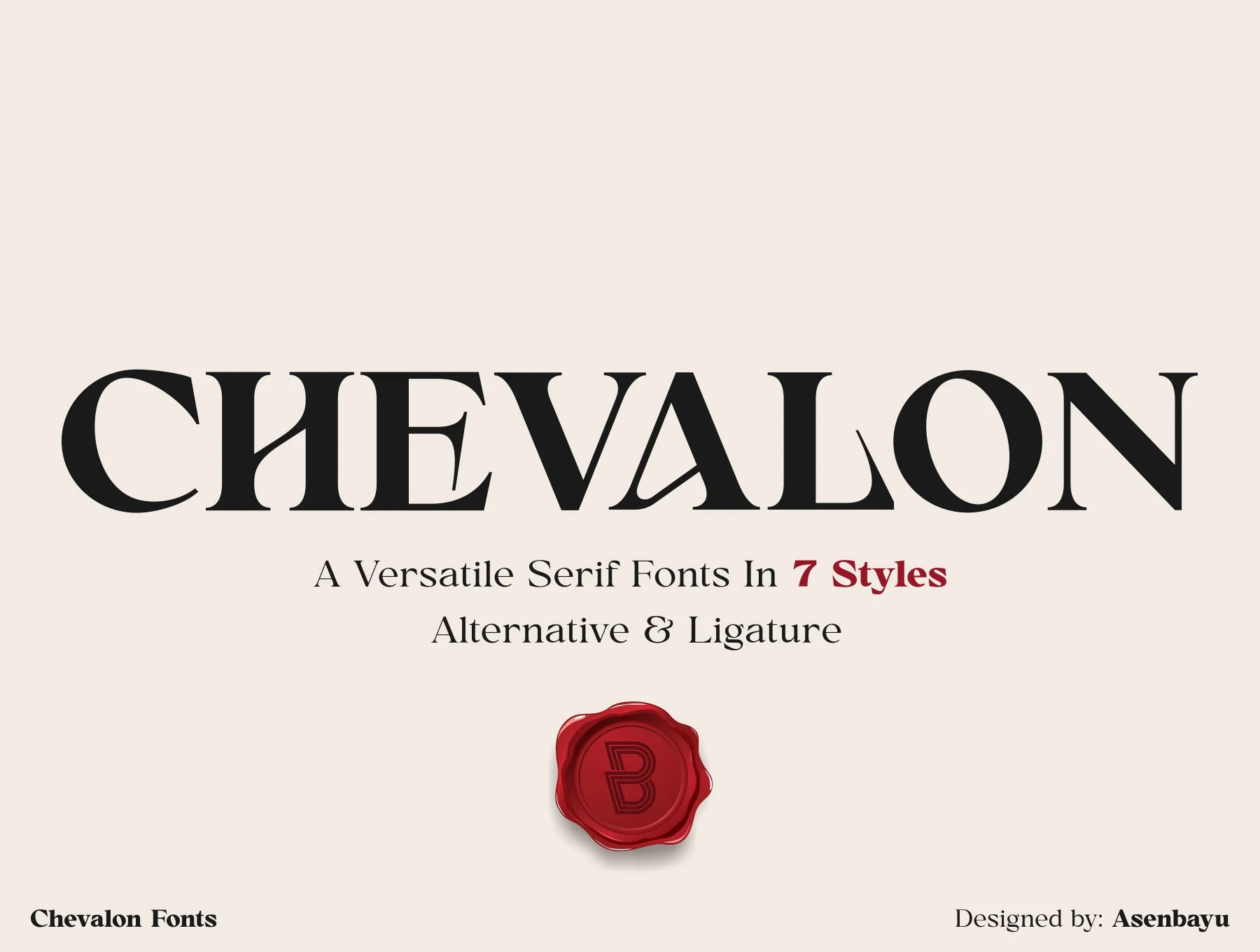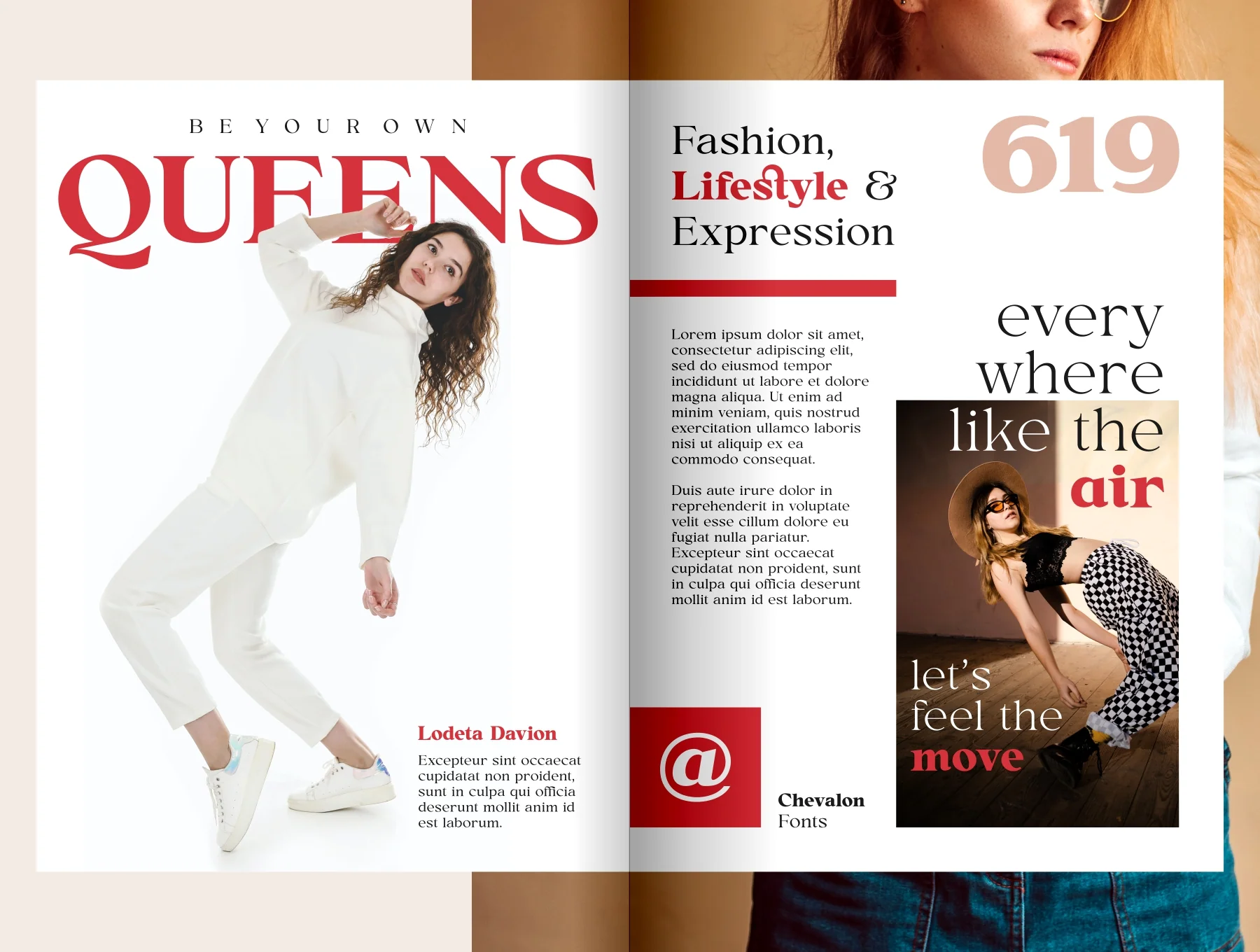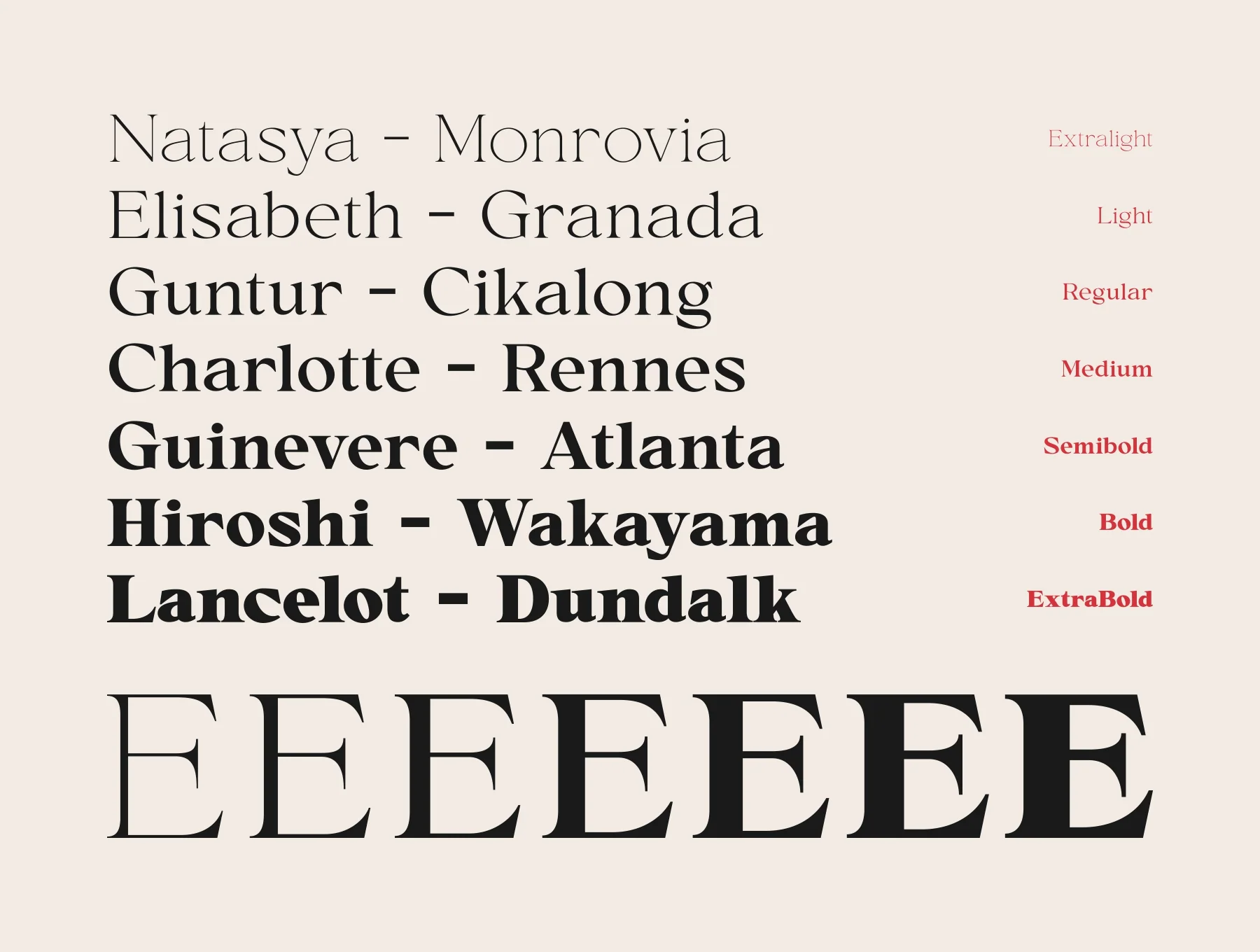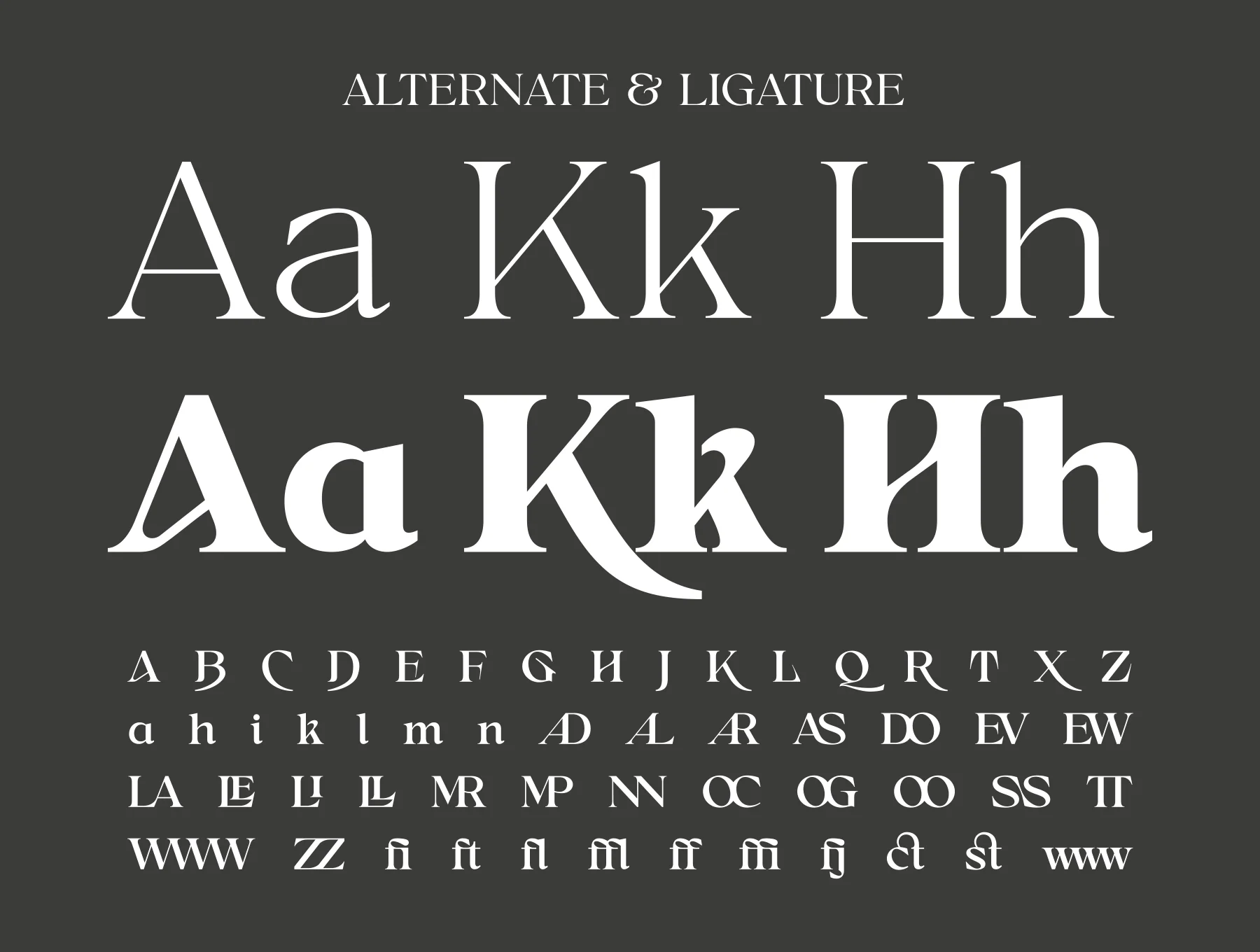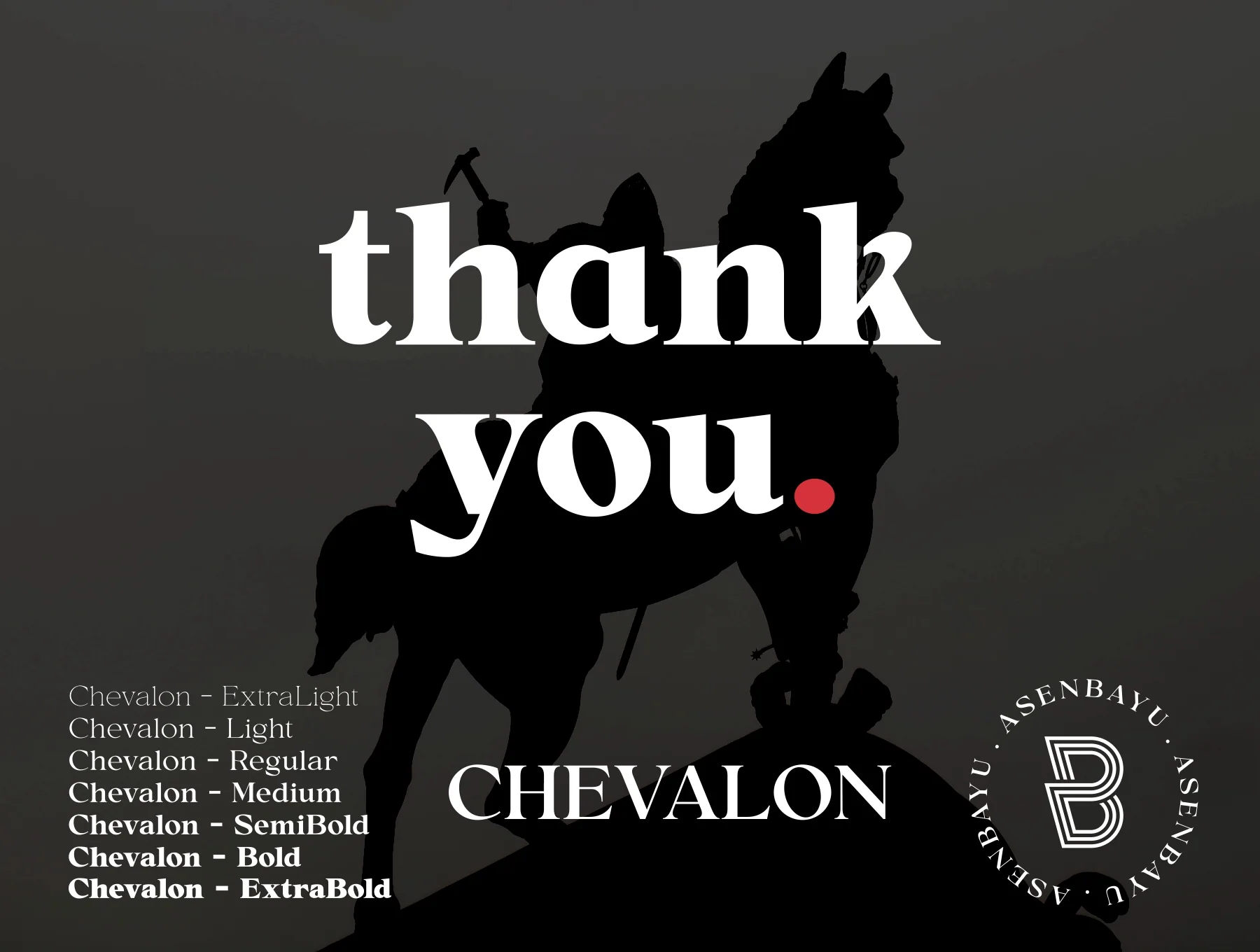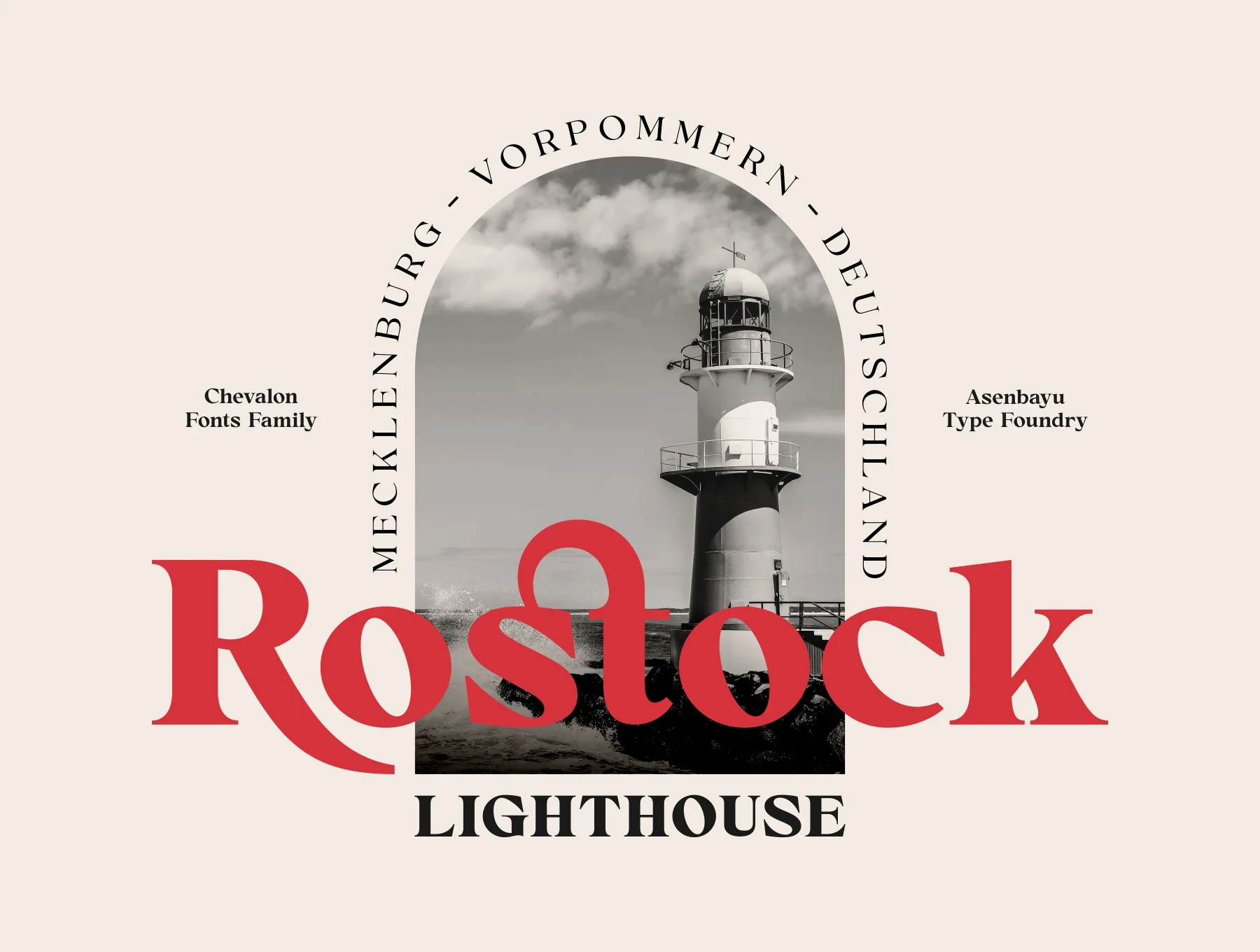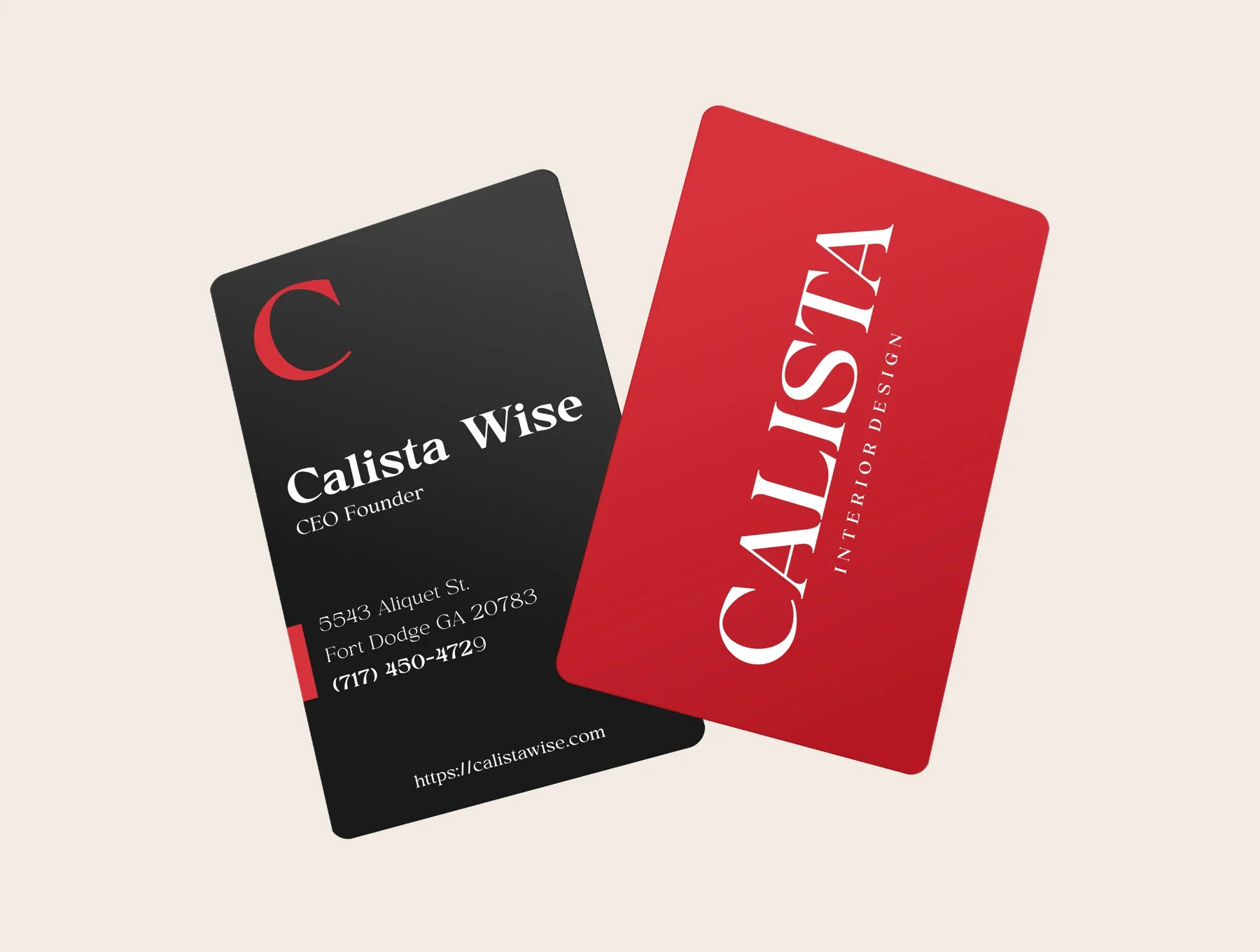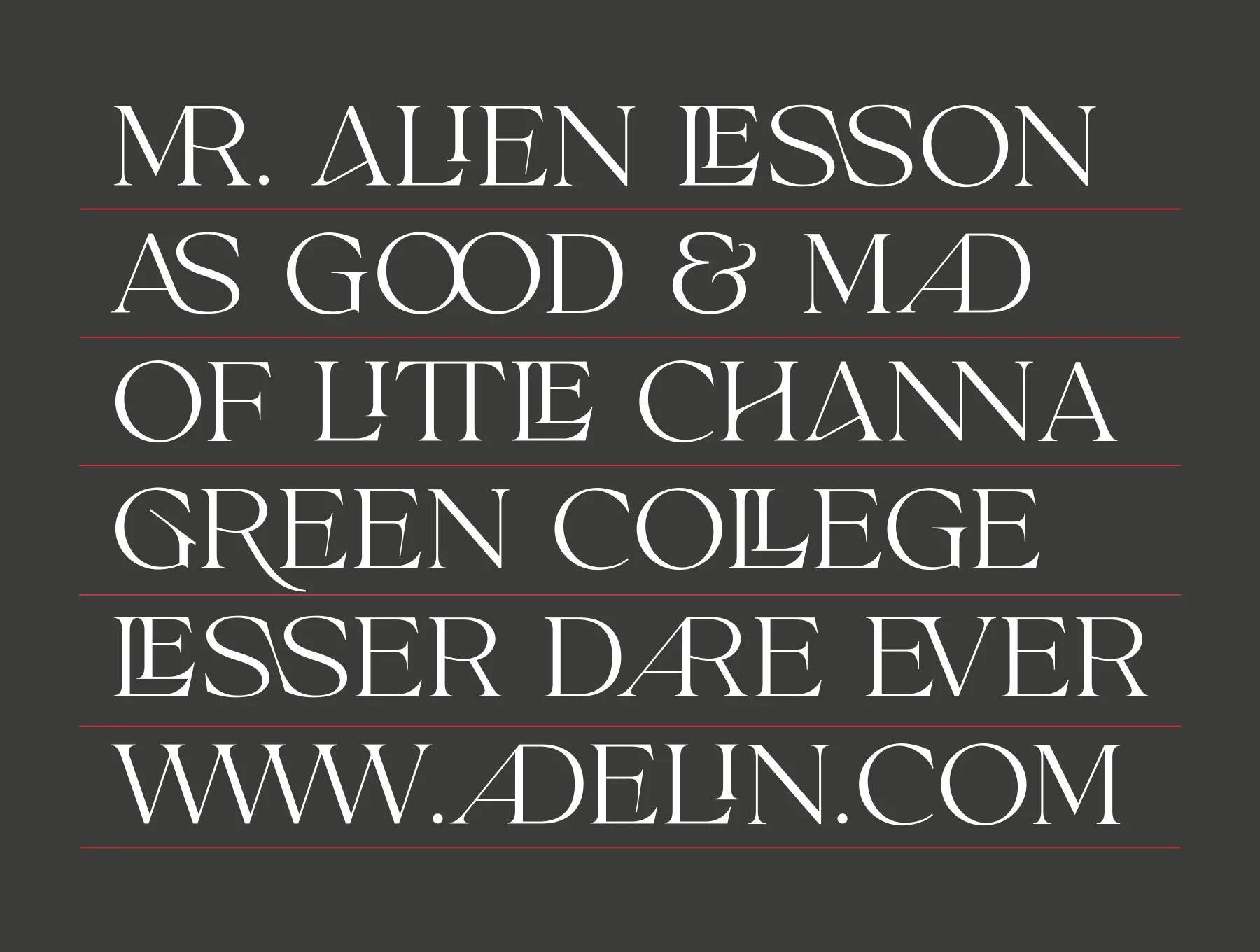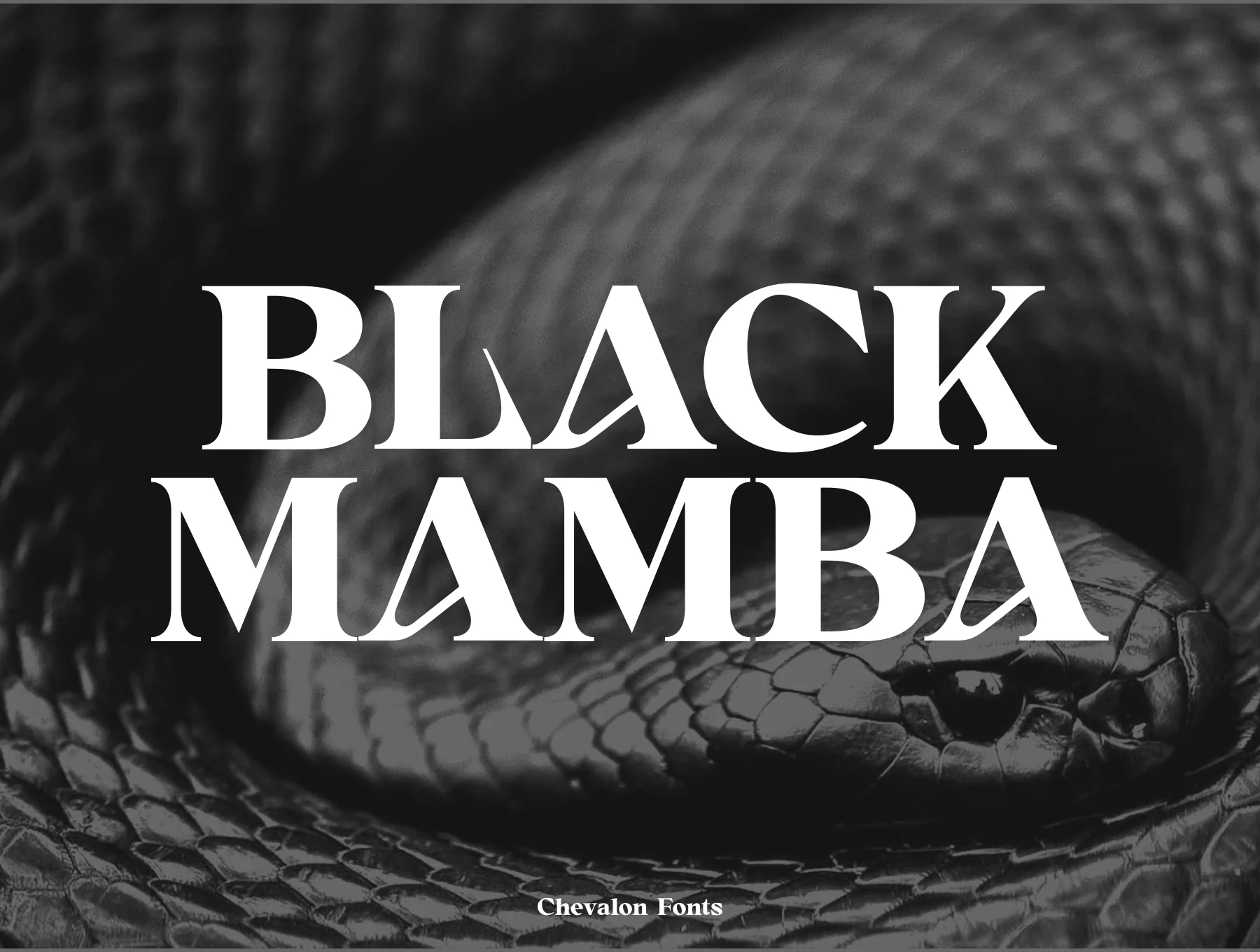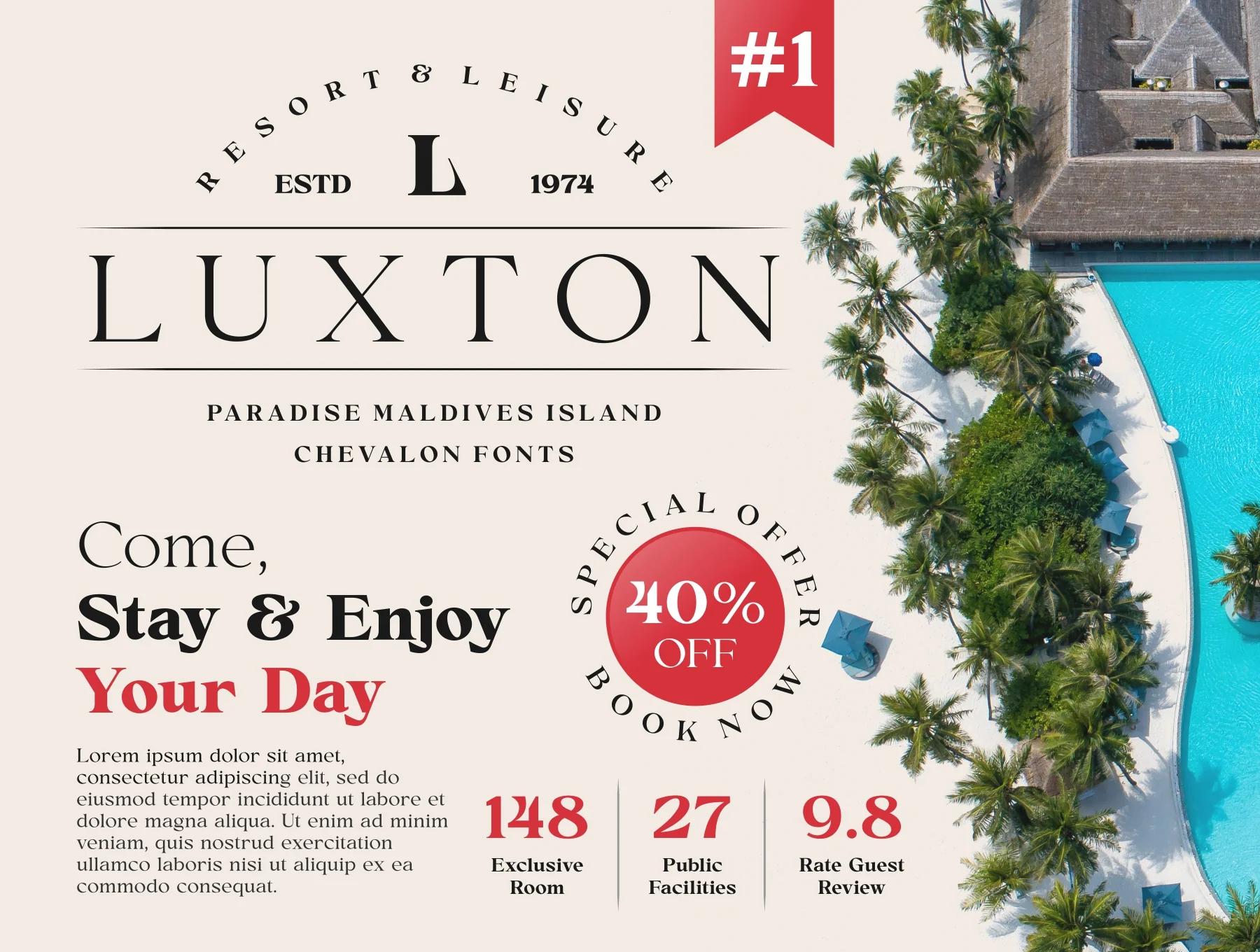
Chevalon Fonts Family
A Flexible Serif Font Family with 7 Styles
7 Variations
Classic Glyph Set
Numbers and Punctuation Marks
Alternate Styles and Ligature Forms
Chevalon is a flexible serif typeface with 7 weights, shaped by medieval Roman lettering and refined for a bold yet graceful look. Its carefully drawn characters suit luxury logos, journals, cards, headlines, product design, social posts, websites, and other polished projects. It includes OpenType features, kerning, ligatures, alternates, numerals, punctuation, multilingual support, and full case.